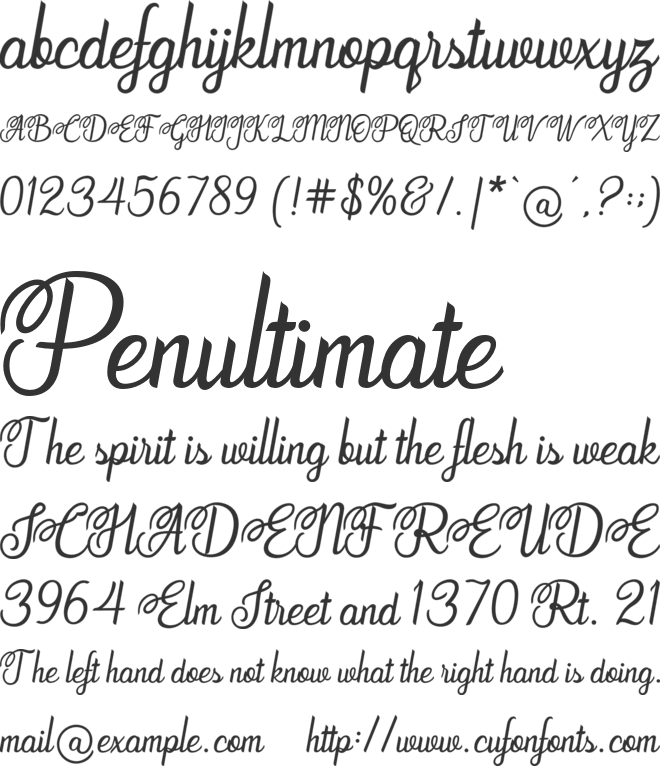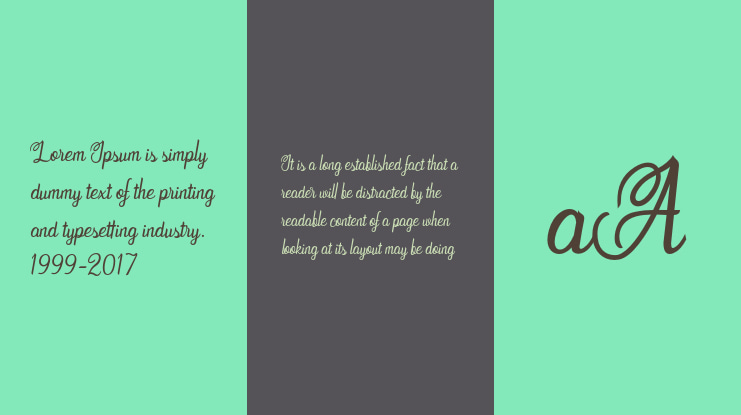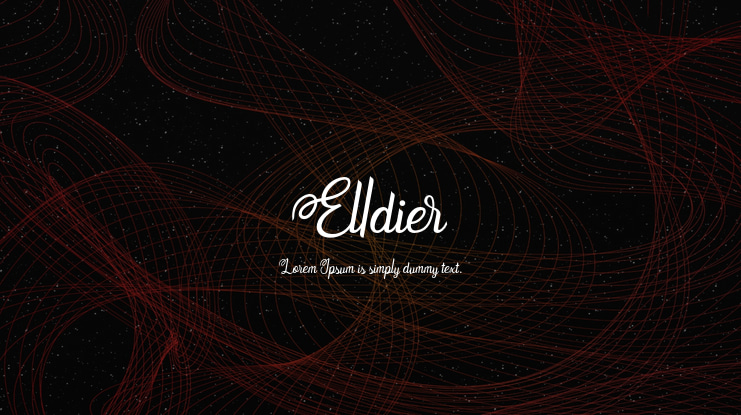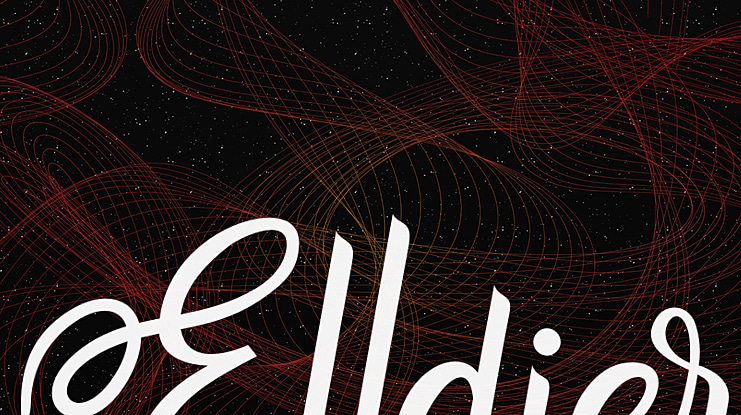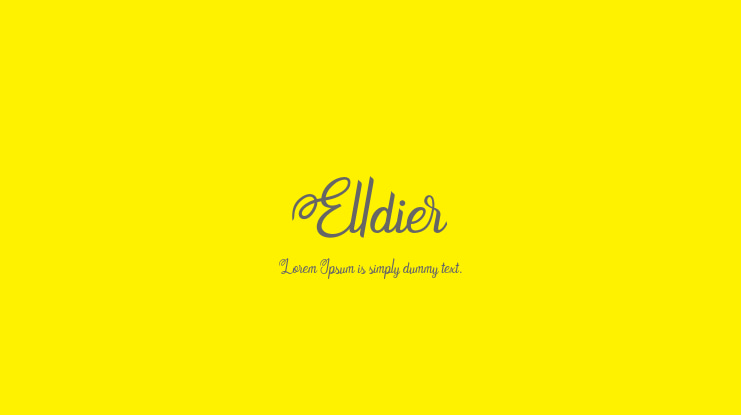
Elldier Font
This is Elldier Font, It is perfect for wedding sign, advertisement, logo design,
quote, product lable, product packaging, T-shirt Lettering design and any
project.